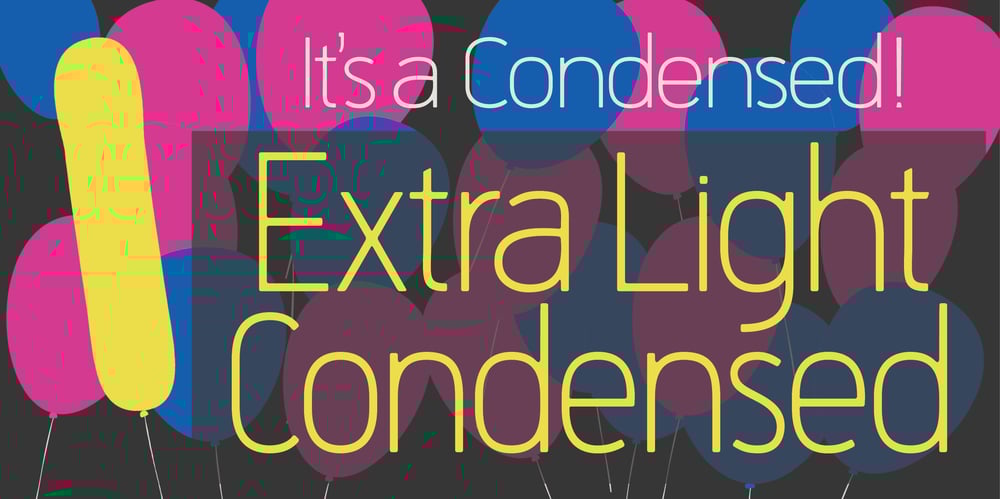
Settled Font Family was designed by Gary Jaffe and published by Settled Font Foundry. Settled contains 23 styles and family package options. Settled is a sans-serif display font whose stems have rounded corner. It is best-suited for applications larger than text paragraphs, such as signage of all sizes, storefronts, headlines, billboards, building signs, brochures, menus, logos, branding, and the like.The Settled font family includes both black and white and color SVG fonts.Settled takes advantage of the introduction of color font design, using a new font-naming convention, in order to achieve well-ordered font menu results in graphic design applications.A font traditionally styled “Black”, is in Settled styled “B&W-Black”. This new naming convention keeps all traditional black and white fonts together in the menu. The color CAPS (caps only) fonts are grouped together; the color CLR (caps and lower case) fonts are grouped together as well. Capitalizing CAPS and CLR makes them easily identifiable in the menu. The inclusion of the word “Tags” indicates that the glyph includes both the letter glyph as well as a multi-colored geometric background, or “tag”.Kindly zoom in on the font art examples provided to make a proper examination. Thank you. Good success to you.